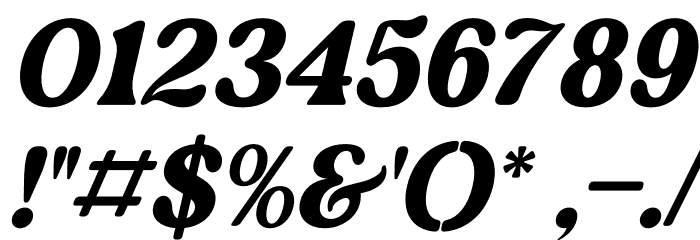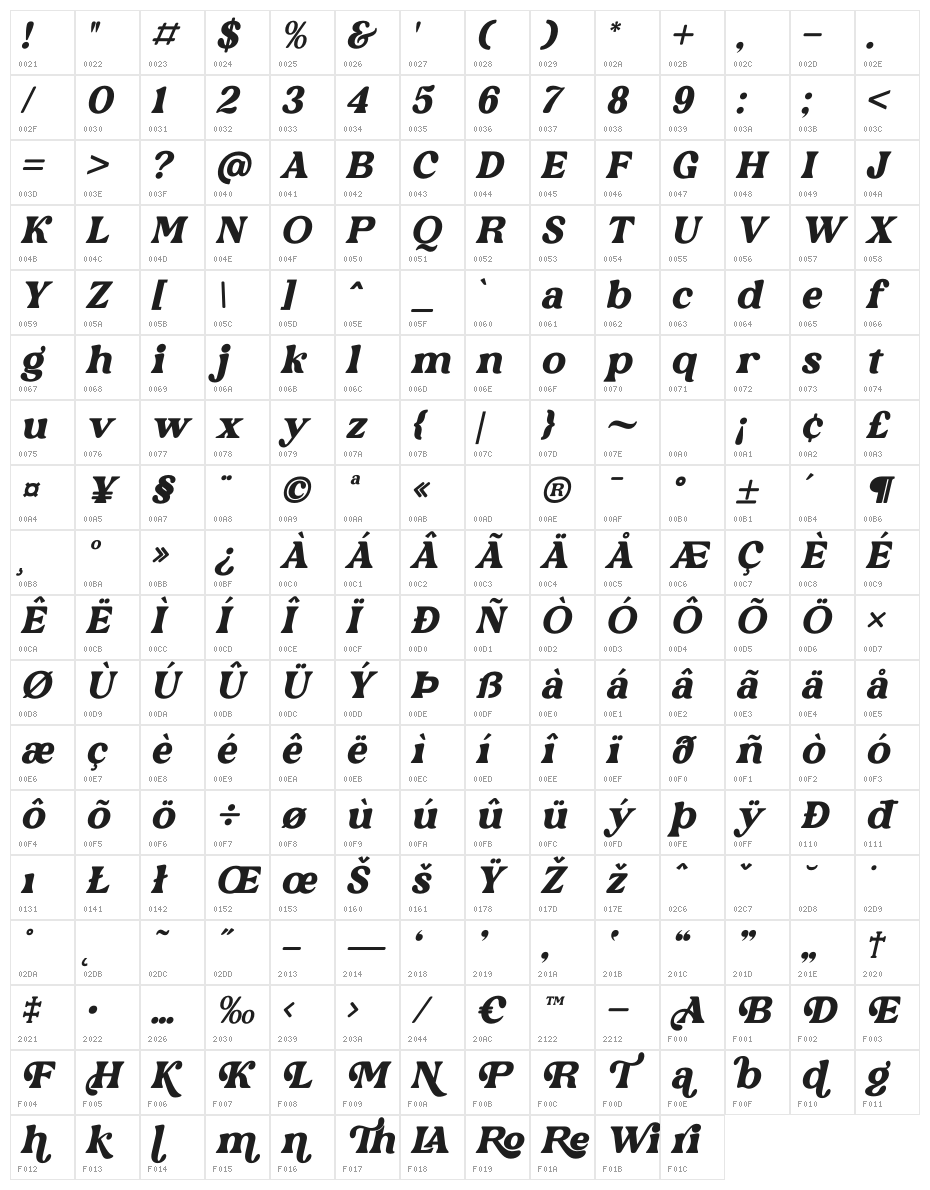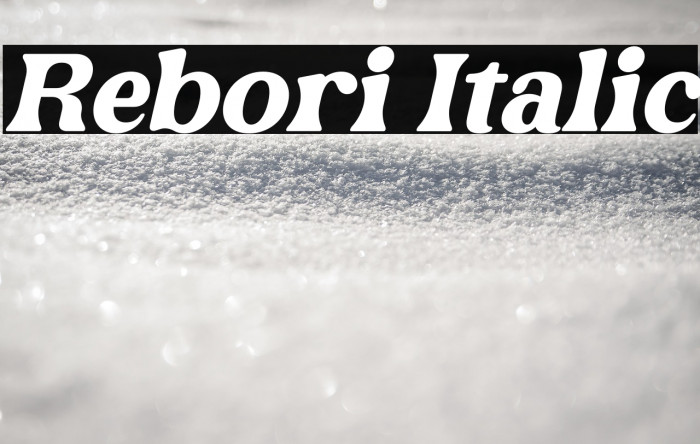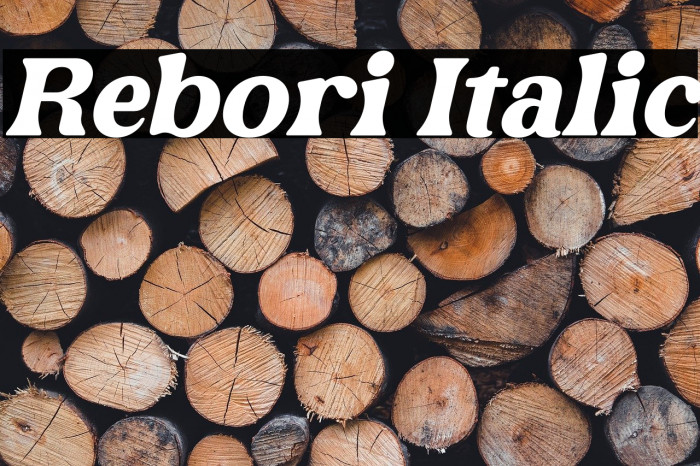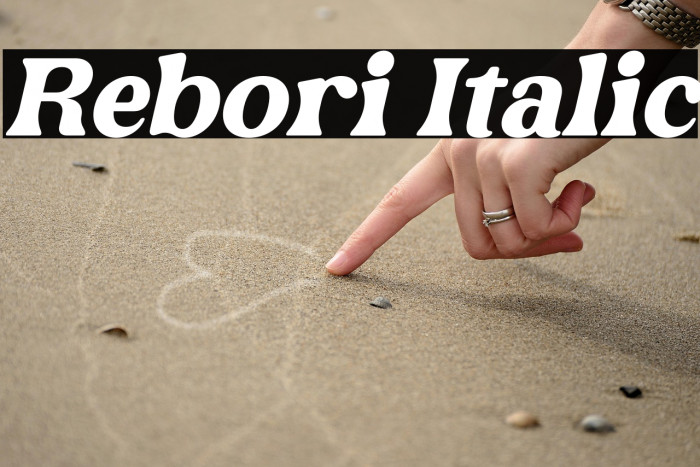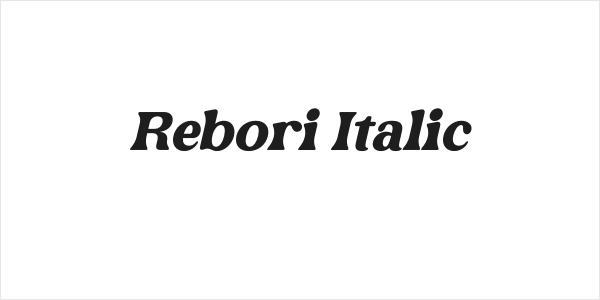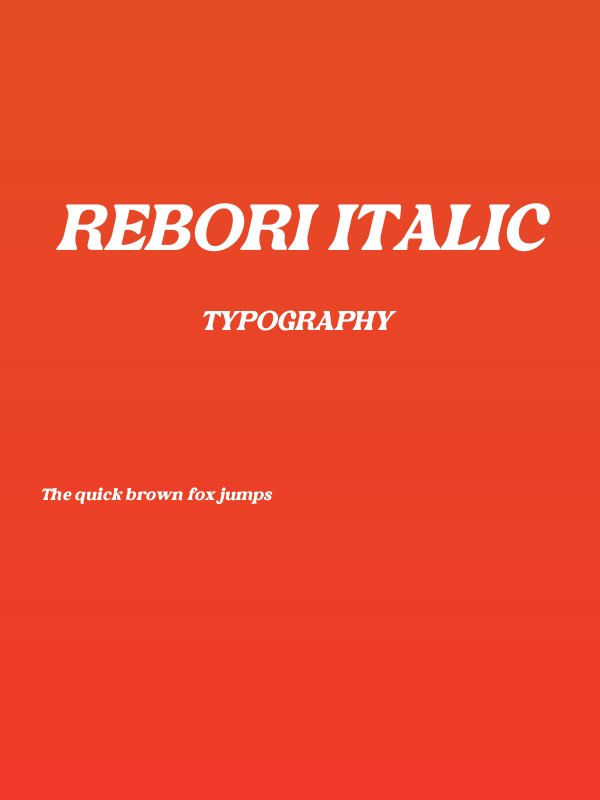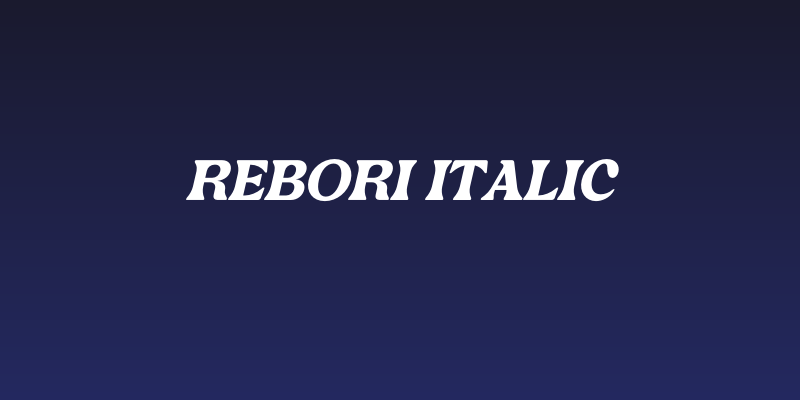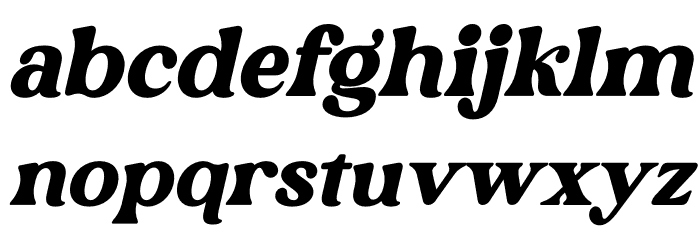
Rebori Italic Font
Rebori Italic Description
This font exhibits a bold and dynamic style with a pronounced italic slant, giving it a sense of movement and elegance. The characters are well-defined with thick strokes, providing a strong visual impact. The uppercase letters are robust and commanding, while the lowercase letters maintain a consistent flow, enhancing readability. The numerals are clear and distinct, matching the overall boldness of the font. Special characters are designed with the same attention to detail, ensuring they integrate seamlessly with the alphabetic characters. This font's boldness and italic nature make it suitable for creating striking headlines and titles.